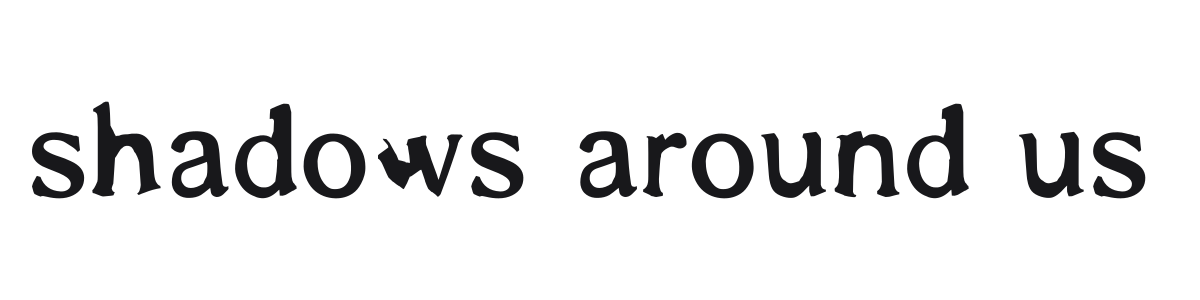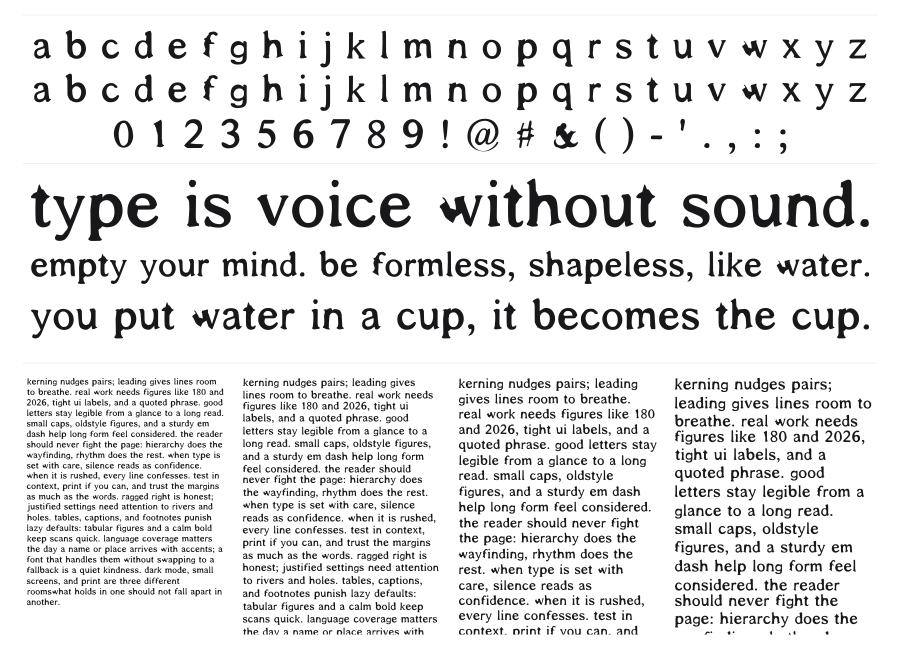
Shadows Around Us
Shadows Around Us is a serif display font with a dark, organic personality driven by spike-like terminals that suggest claws, dripping shadows, or flickering flames. The overall weight stays readable, but the irregular character construction and unsettling details push it firmly into horror and supernatural territory. It works best large, where those spiky accents land with full effect.